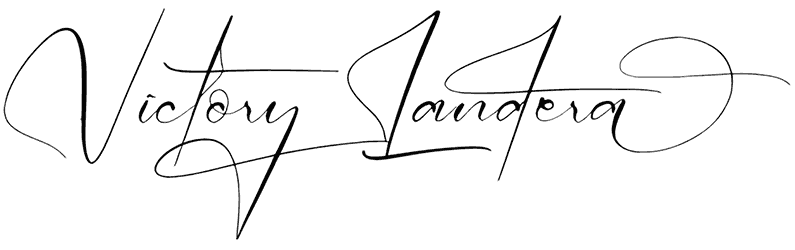
Victory Landera Font
Victory Landera has reached the pinnacle of elegance in design and has used ultra-thin lines for lettering. This handwritten font is worth checking out for writing short texts or letters, and can add a little personal touch to your writing.
So if you need to simulate a handwritten signature in your content or want to get away from the rigid forms of official calligraphy, this unreadable certificate font is a great option to create new situations.